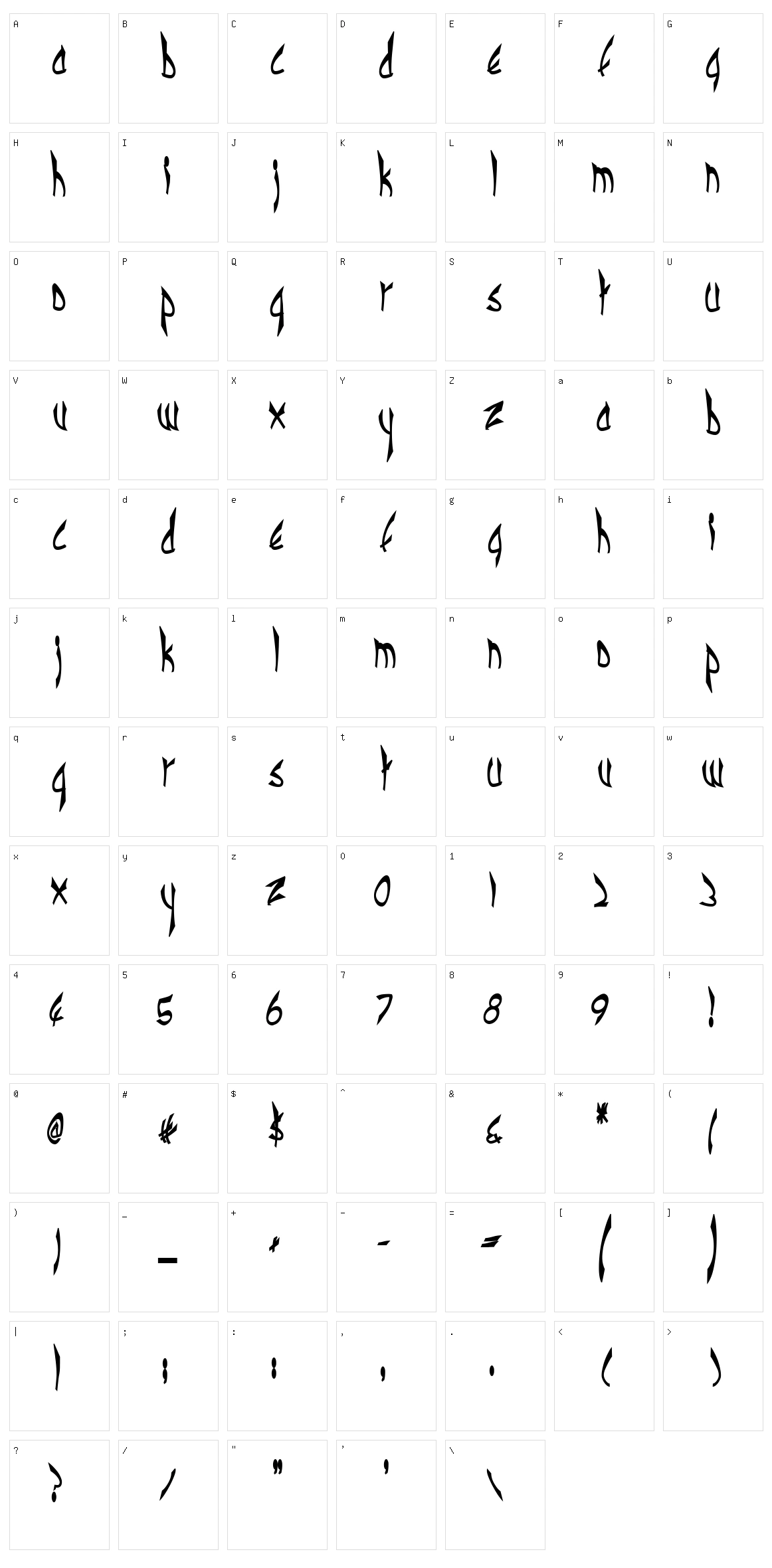
A few years ago i created a logo for a little event-management company in Hamburg Germany.
Their name was "Cool Blue Events" I draw this logo with the three letters cbe without using an existing font.
They asked me to expand this three letters to a nearly full featured font for use with their flyers... Here it is:
cbe Normal...